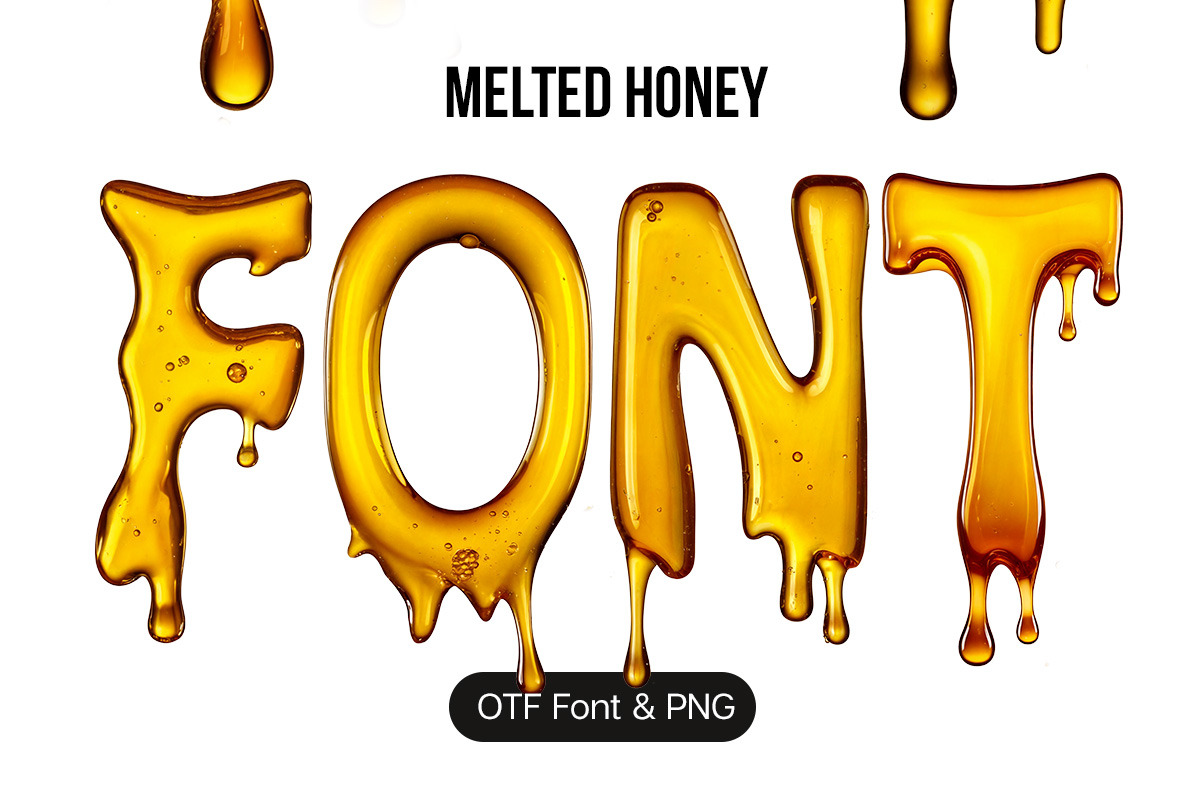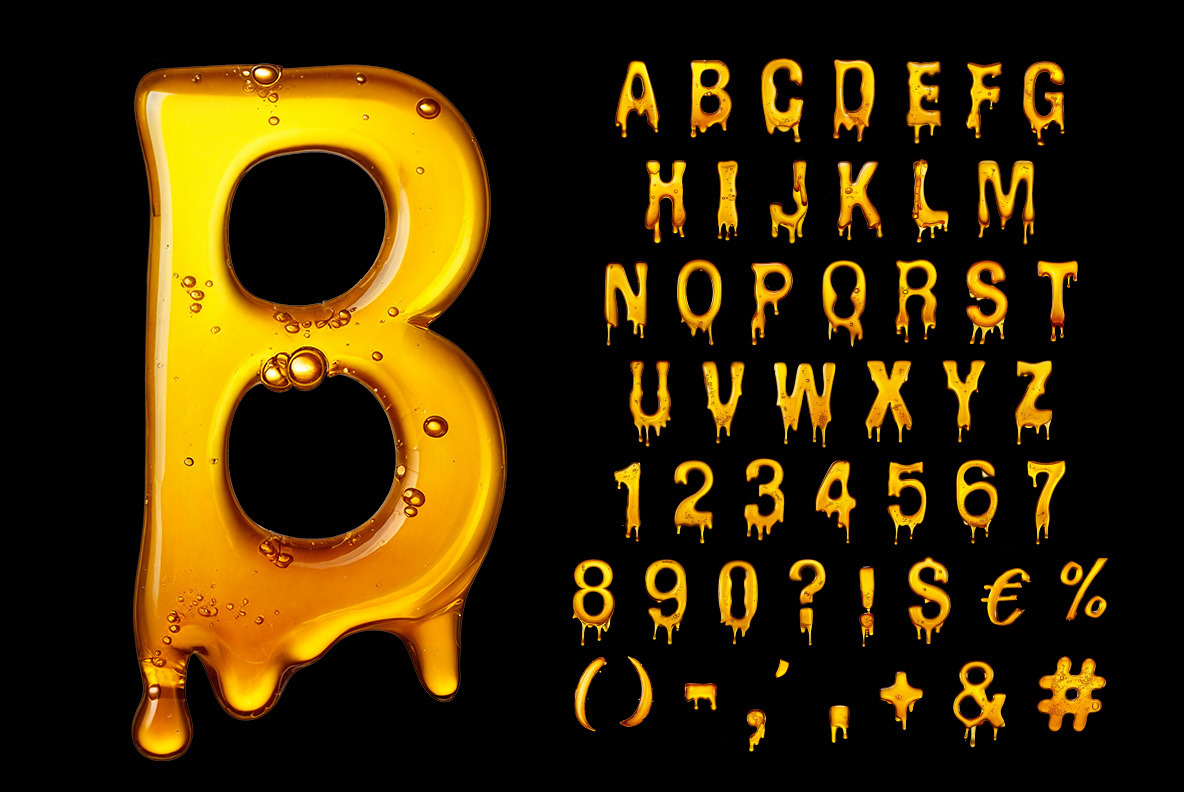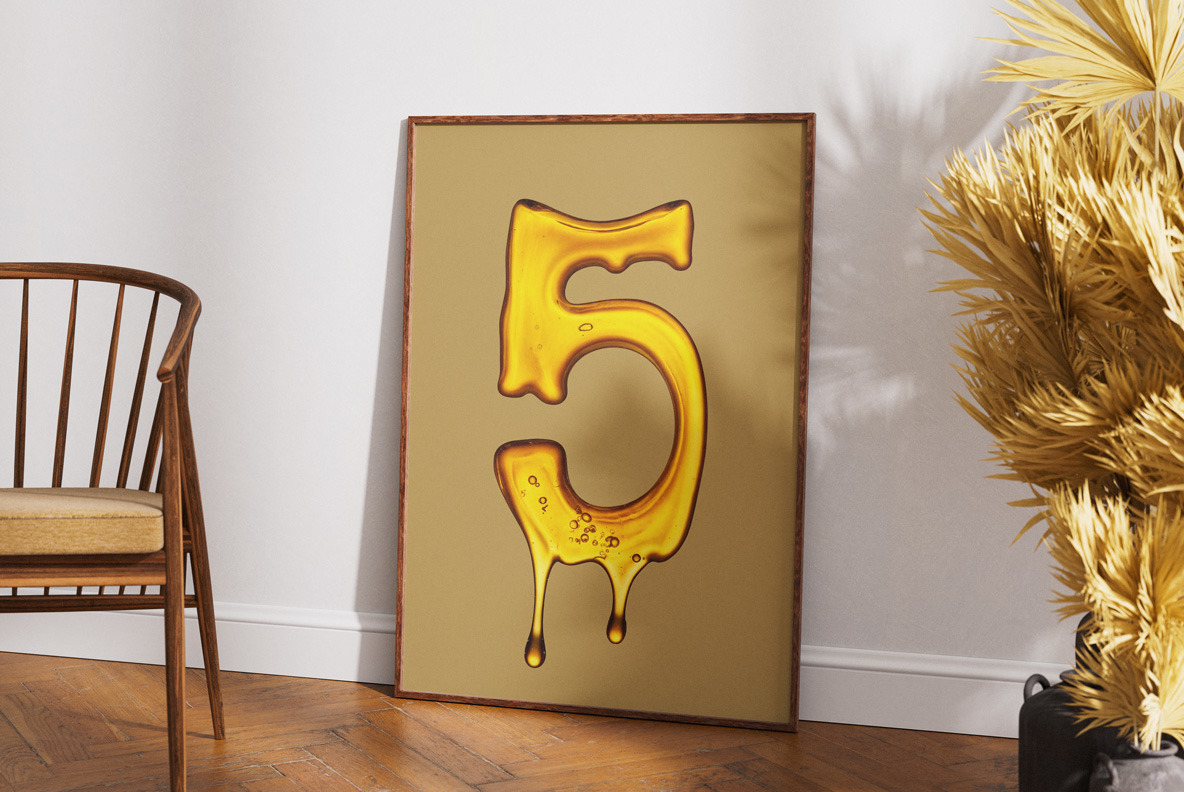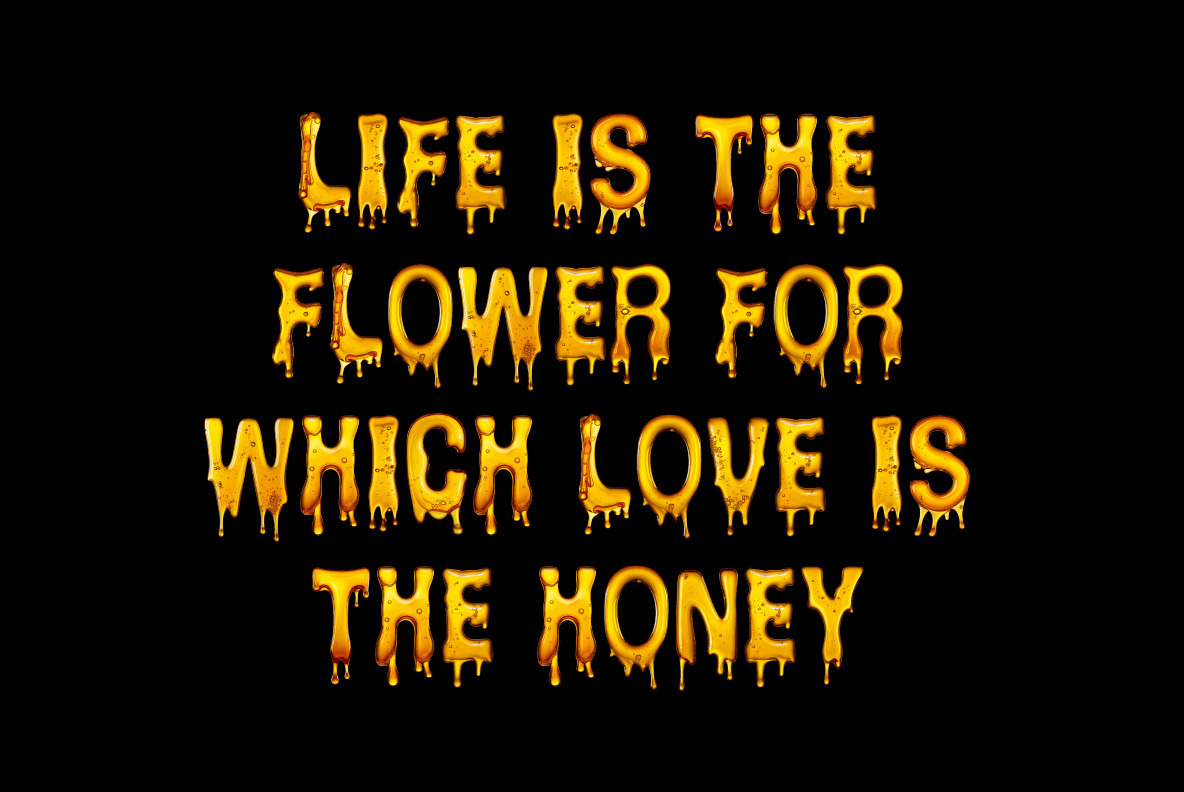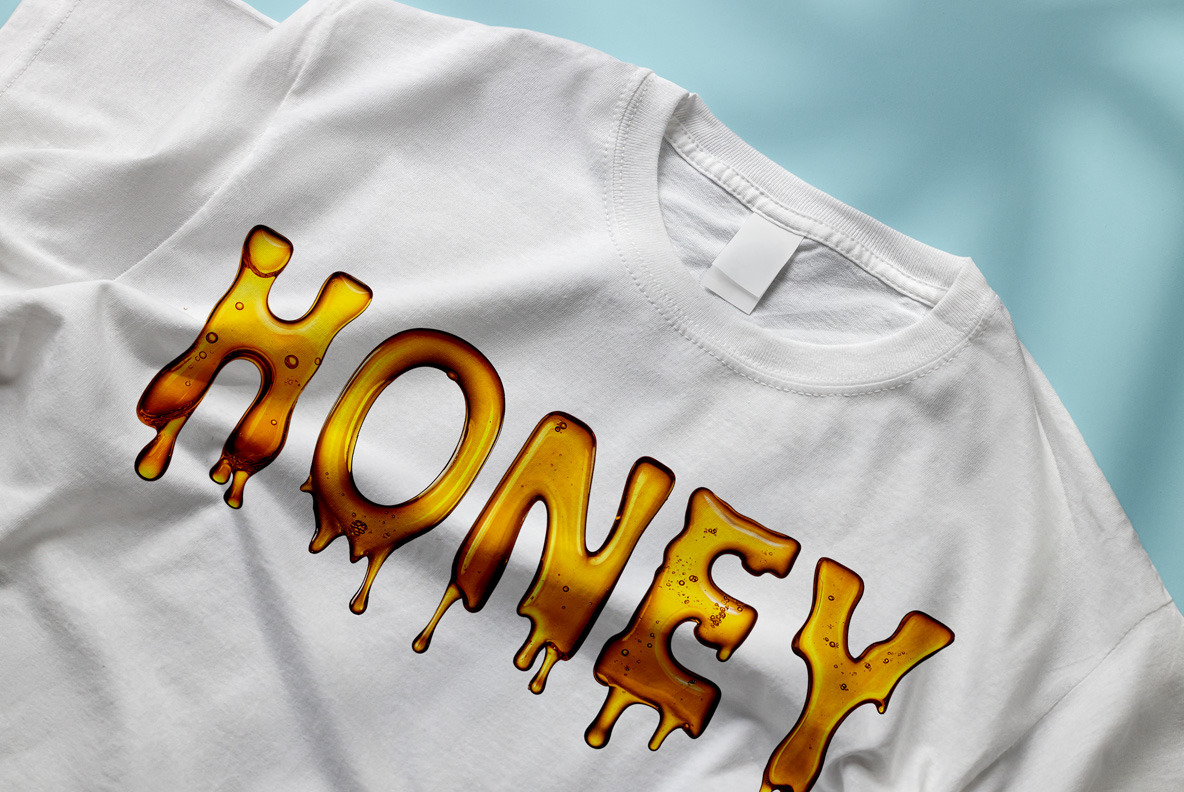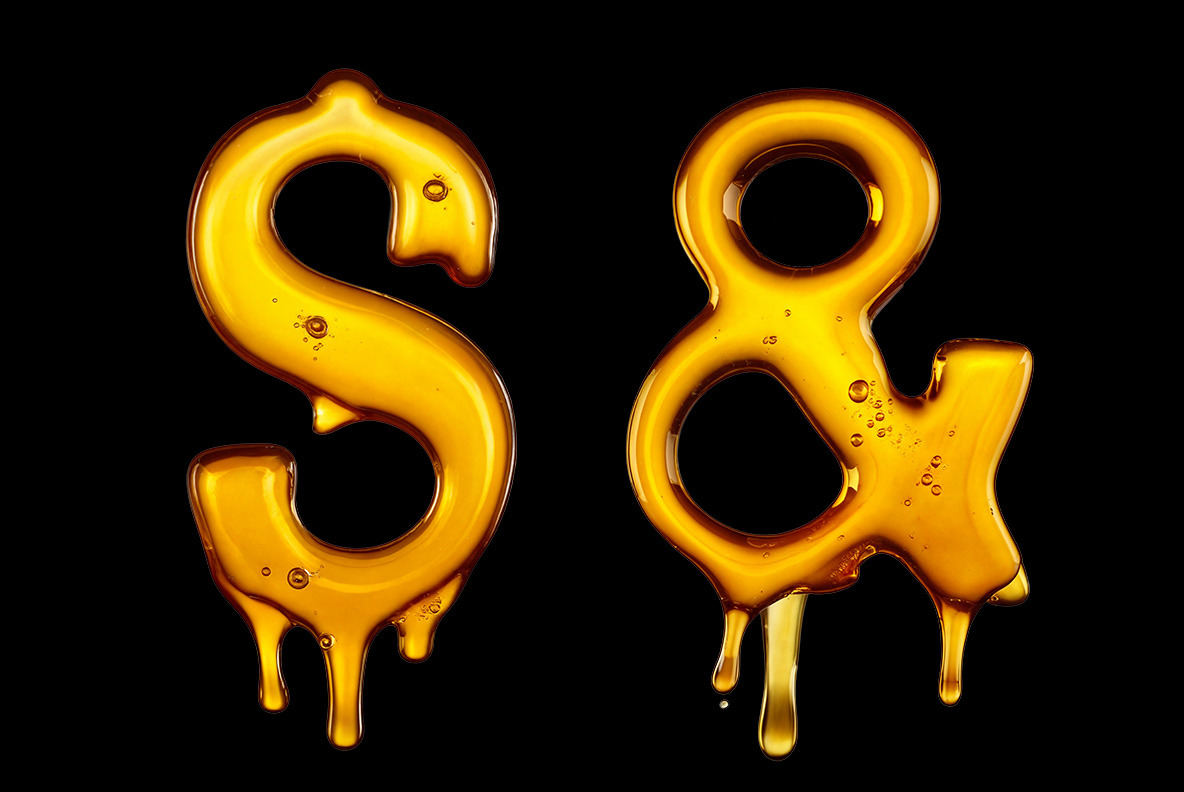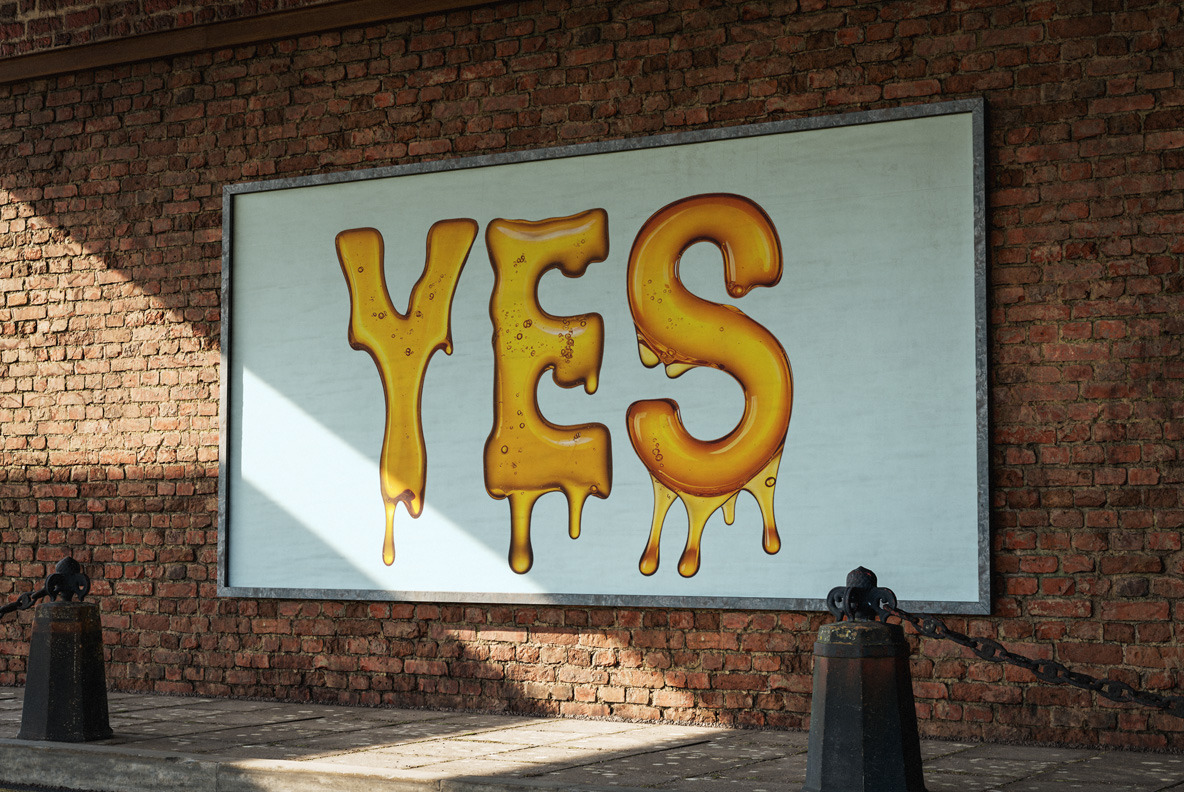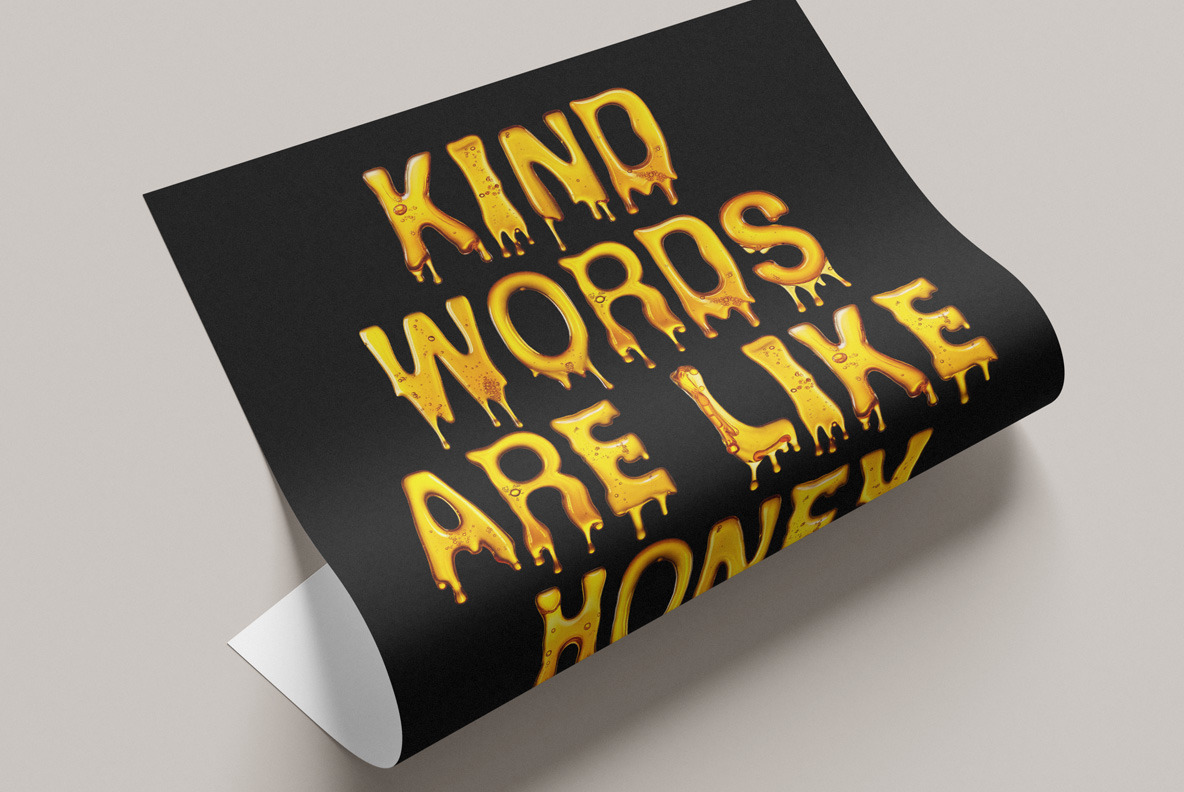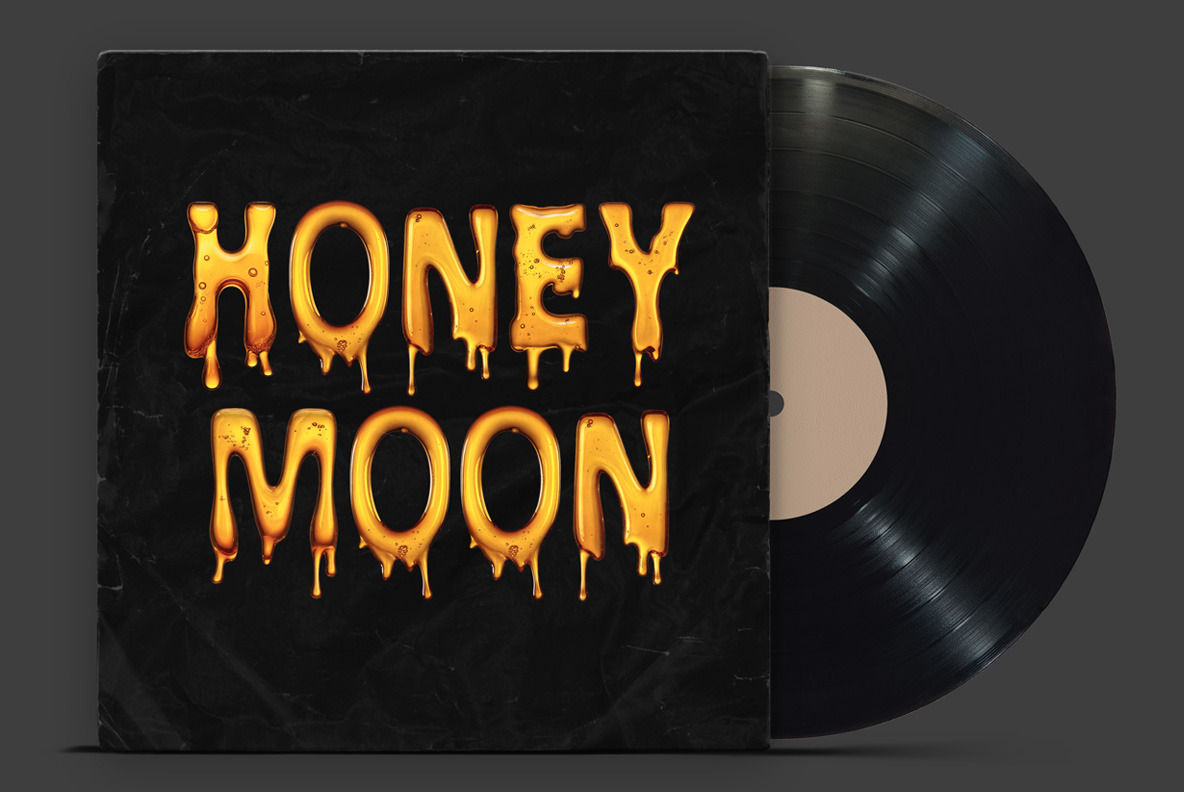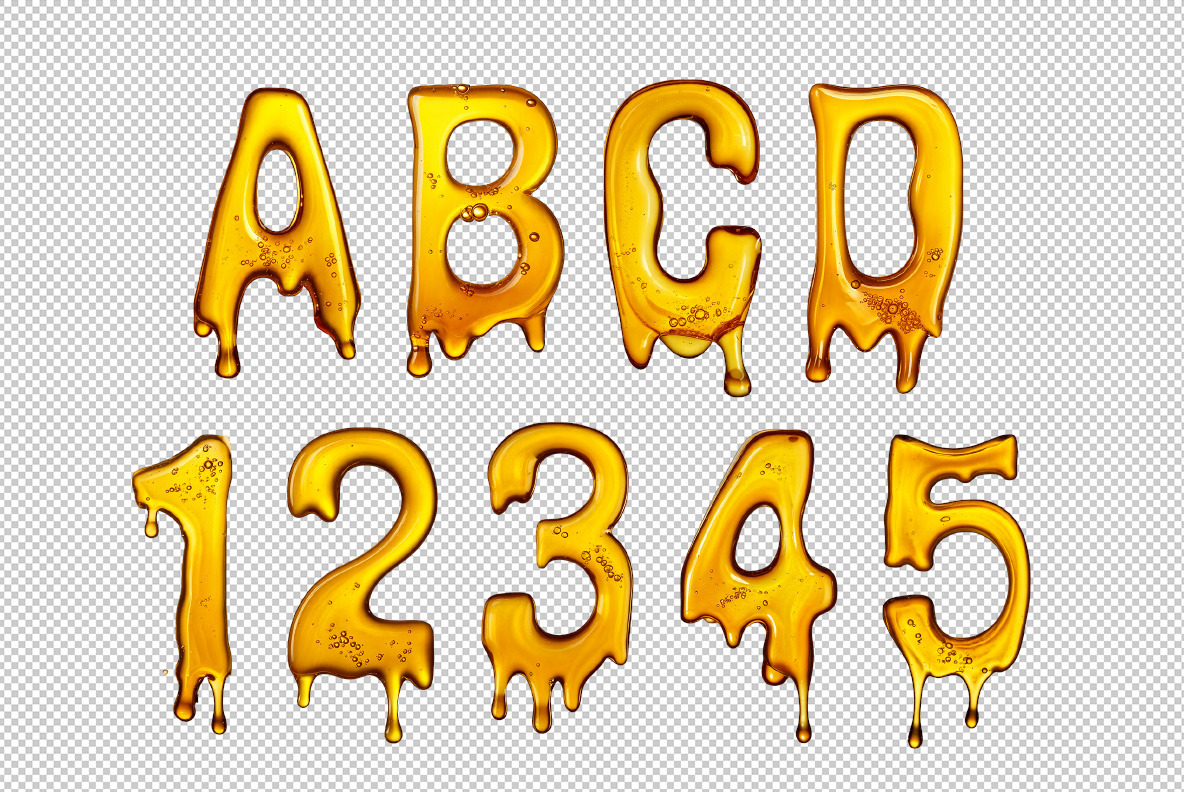
Melted Honey Font
Melted Honey Font is a sweet, flowing typeface that mimics the rich, smooth drip of golden honey. Perfect for adding warmth and charm to any design, it’s ideal for branding, invitations, packaging, or anything that needs a touch of natural sweetness and organic elegance.
A high definition OpenType Font. Contains uppercase characters, numerals and basic punctuation. (Draw height roughly 800 pixels). All letters and glyphs that comprises this font you can see on the preview.
Others : ! ? - . ' $ € % @ &